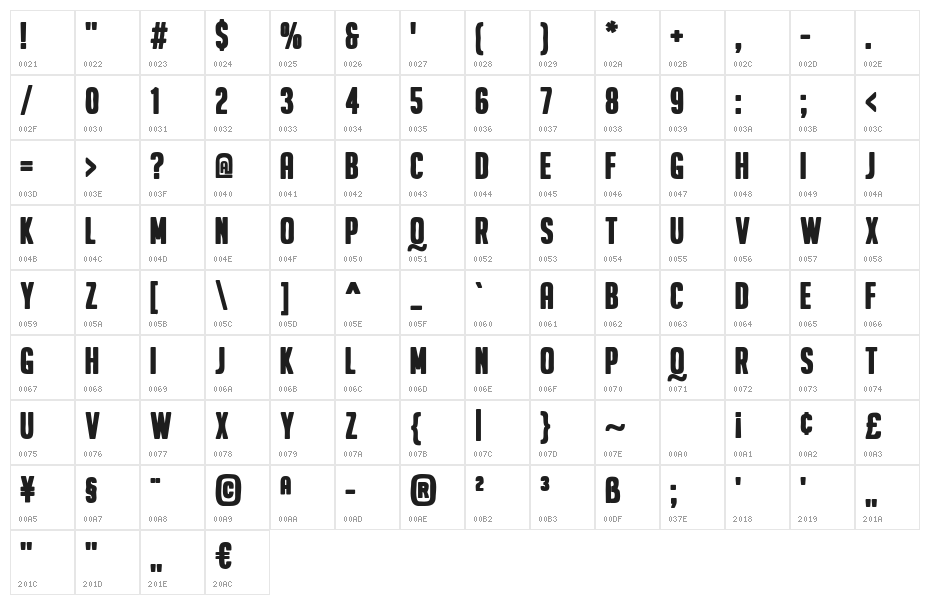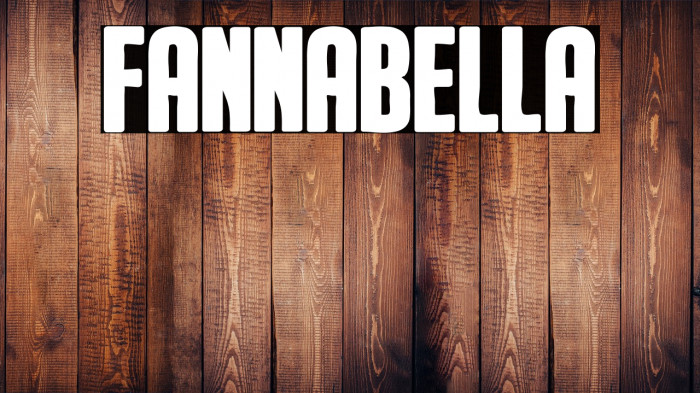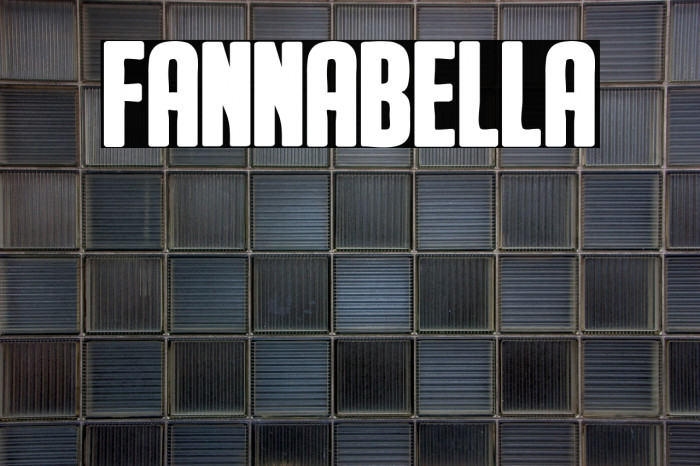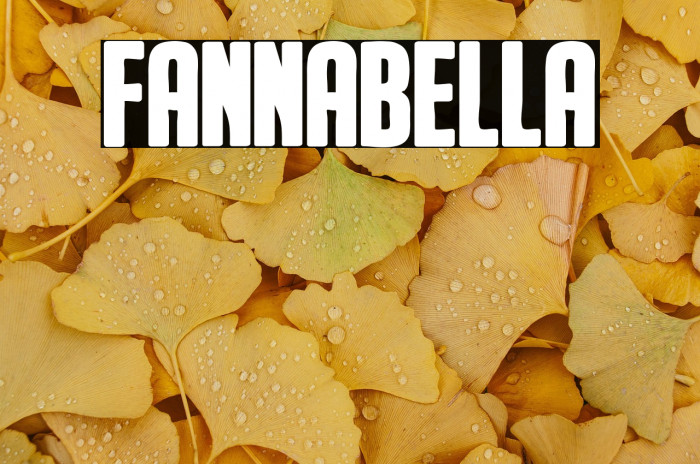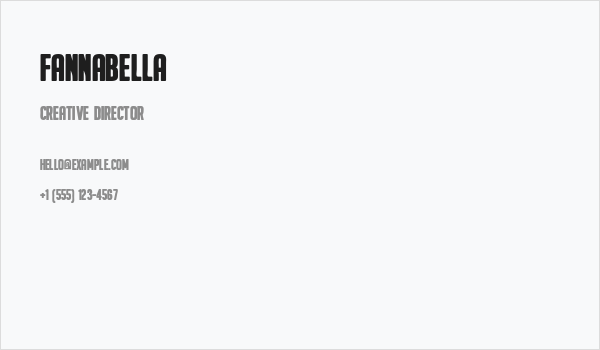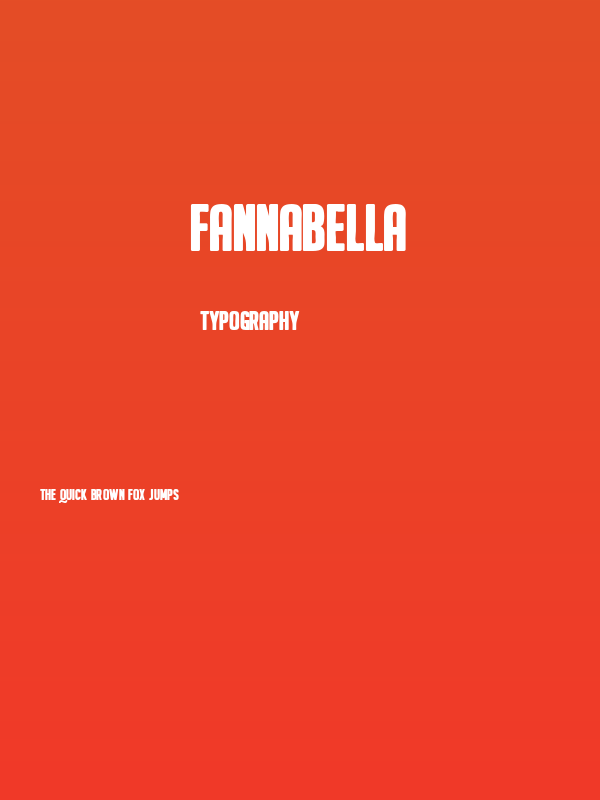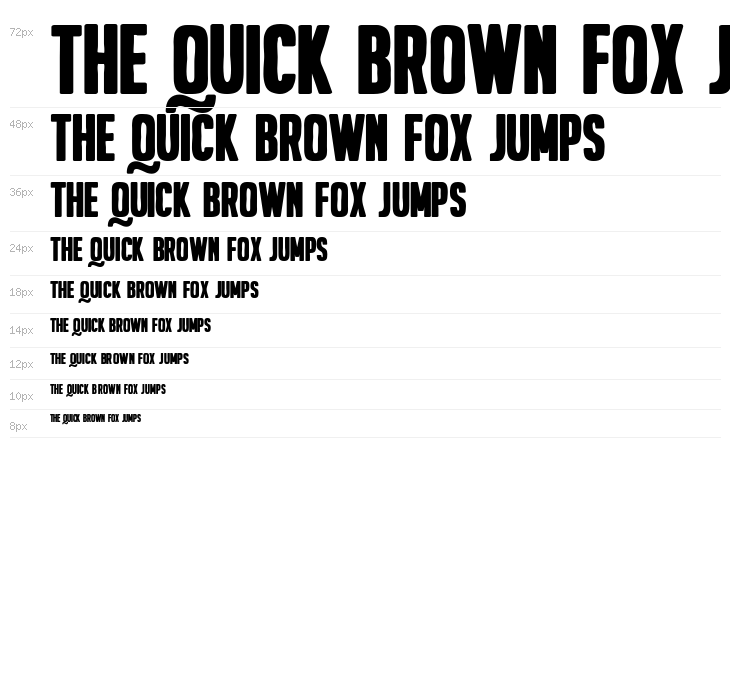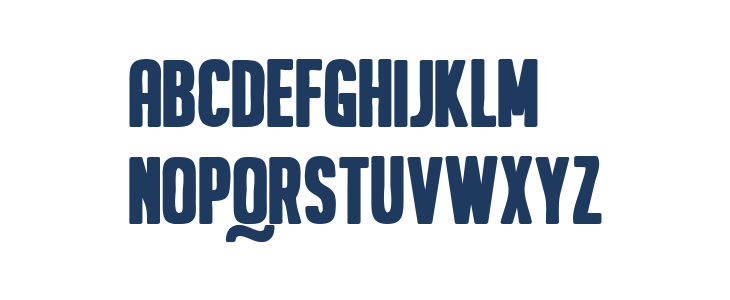
Fannabella Font
Fannabella Description
This font features bold, blocky characters with a strong presence, making it ideal for attention-grabbing headlines and impactful designs. The uppercase letters are uniformly styled with a slight curvature that adds a touch of softness to the otherwise robust structure. The numbers and special characters maintain the same boldness, ensuring consistency across all text elements. The font's design is straightforward yet powerful, with a modern aesthetic that can suit various creative projects.
| Proposed Projects | Ideal for posters, banners, branding materials, and any project requiring a strong visual impact. |